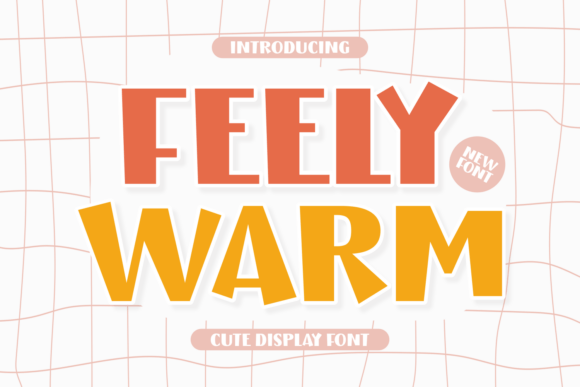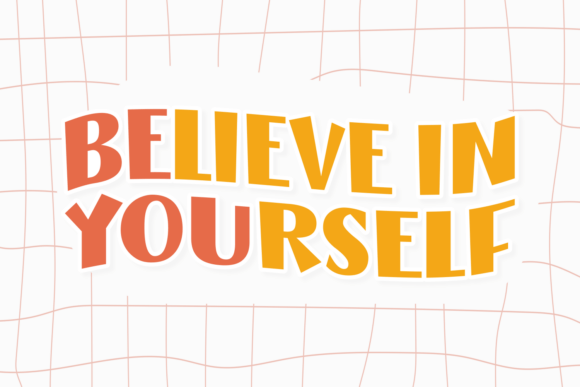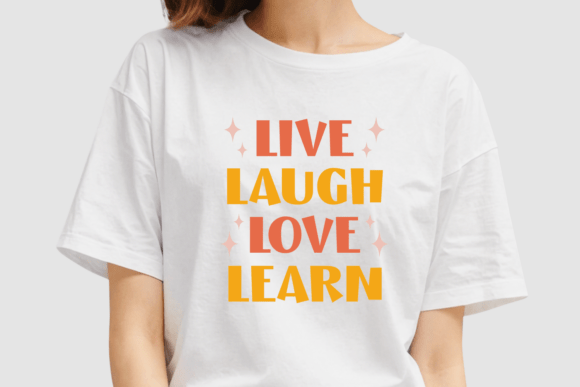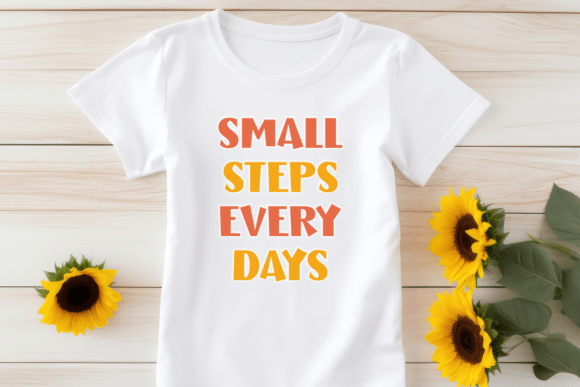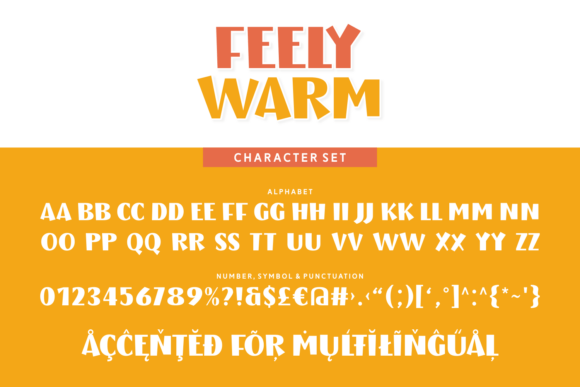
Embracing the Joy of Typography
Remember the thrill of discovering a font that perfectly captures the essence of a project? For designers, this ‘aha’ moment is a game-changer. It’s the spark that ignites creativity and sets the tone for a masterpiece. For us, that moment came with the introduction of the “Feely Warm Font” – a lovingly crafted display font that radiates joy, cheer, and charm.
This delightful typeface is a versatile companion for any design project, from playful headlines and comics to branding and design work. With its eye-catching cartoon style and clean, lovely lines, “Feely Warm Font” shines when used to bring a unique and trendy touch to Eastern European-themed designs, bright summer feels, or enchanting Easter creations. Whether you’re crafting quotes, designing seasonal expressions, or simply adding an exceptional edge to your work, this multifunctional font is the perfect partner in crime.
Key Features of Feely Warm Font
- Font Family: Feely Warm Font is a sans-serif font family, designed to provide a warm and friendly feel to digital and print media.
- Unique Characteristics: Feely Warm Font features a unique blend of geometric and organic shapes, creating a friendly and approachable feel. Its distinctive letterforms and subtle rounded edges add a touch of warmth and personality to any design.
Designer Review: Feely Warm Font
Overall, I have mixed feelings about the Feely Warm Font. It’s a beautiful and unique font that can add a touch of warmth and personality to any design project. ✨ Here are some of the things that I think work well:
- Unique warmth and character: The Feely Warm Font has a distinct, humanistic feel that makes it stand out from more traditional fonts.
- Highly legible: Despite its unique characteristics, the font is still highly legible and easy to read, even at smaller font sizes.
- Versatile: The font works well in a variety of contexts, from body text to headings and even display typography.
- Limited font weights: The Feely Warm Font is only available in a limited range of font weights, which can make it less versatile than other fonts.
- Not suitable for small text: While the font is highly legible, it’s not the best choice for small text, as the characters can become difficult to distinguish.
- Not suitable for formal or professional contexts: The font’s unique character and warmth may not be suitable for formal or professional contexts, where a more traditional or conservative font may be preferred.
Overall, I think the Feely Warm Font is a great choice for designers who want to add a touch of personality and warmth to their projects. However, it’s not the best choice for every project, and designers should carefully consider the limitations and suitability of the font before using it.
Tips for Getting the Most Out of Feely Warm Font
Feely Warm Font is ideal for creating warm and inviting designs. To get the most out of it, consider the following tips:
- Use it in combination with warm colors, such as earth tones and pastels.
- Pair Feely Warm Font with bold and playful fonts for a contrasting effect.
Feely Warm Font is perfect for:
- Wedding invitations and
Alternatives to Feely Warm Font
Feely Warm Font is a popular font for designers, but sometimes it may not be the best choice for a particular project. Here are a few alternatives that can provide a similar look and feel:
Great Vibes is a modern, elegant script font that is perfect for titles, headings, and other decorative text. It is a great choice when you want to add a touch of sophistication and elegance to your design. Compared to Feely Warm Font, Great Vibes is more refined and polished, making it suitable for high-end designs.